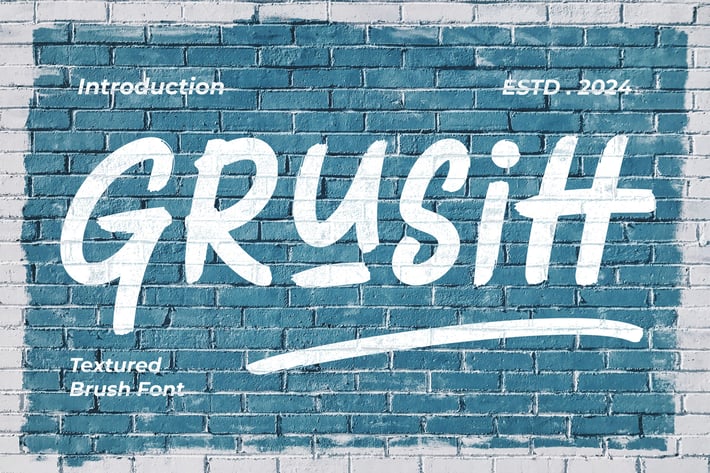
Grusih - Textured Brush Font
Grusih - Textured Brush Font a unique display typeface perfect for titles, large text, branding, logotypes & graphic design purposes such as posters, pamphlets, and advertisements. This letter font can be a great choice for creating amazing logos, promotional content, and marketing presentations that can bring uniqueness and freshness at its best.
Uppercase and Lowercase letters
Numbering and Punctuations
Alternate